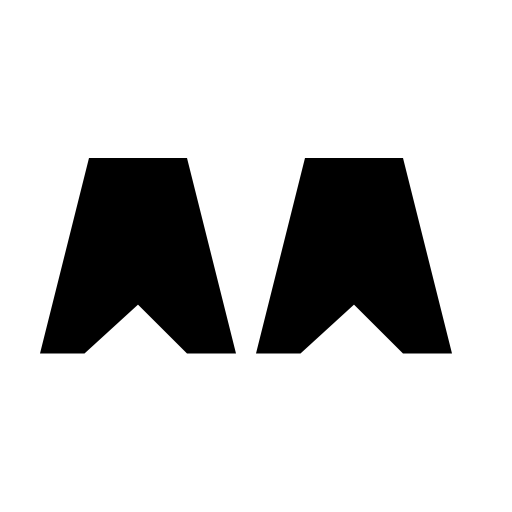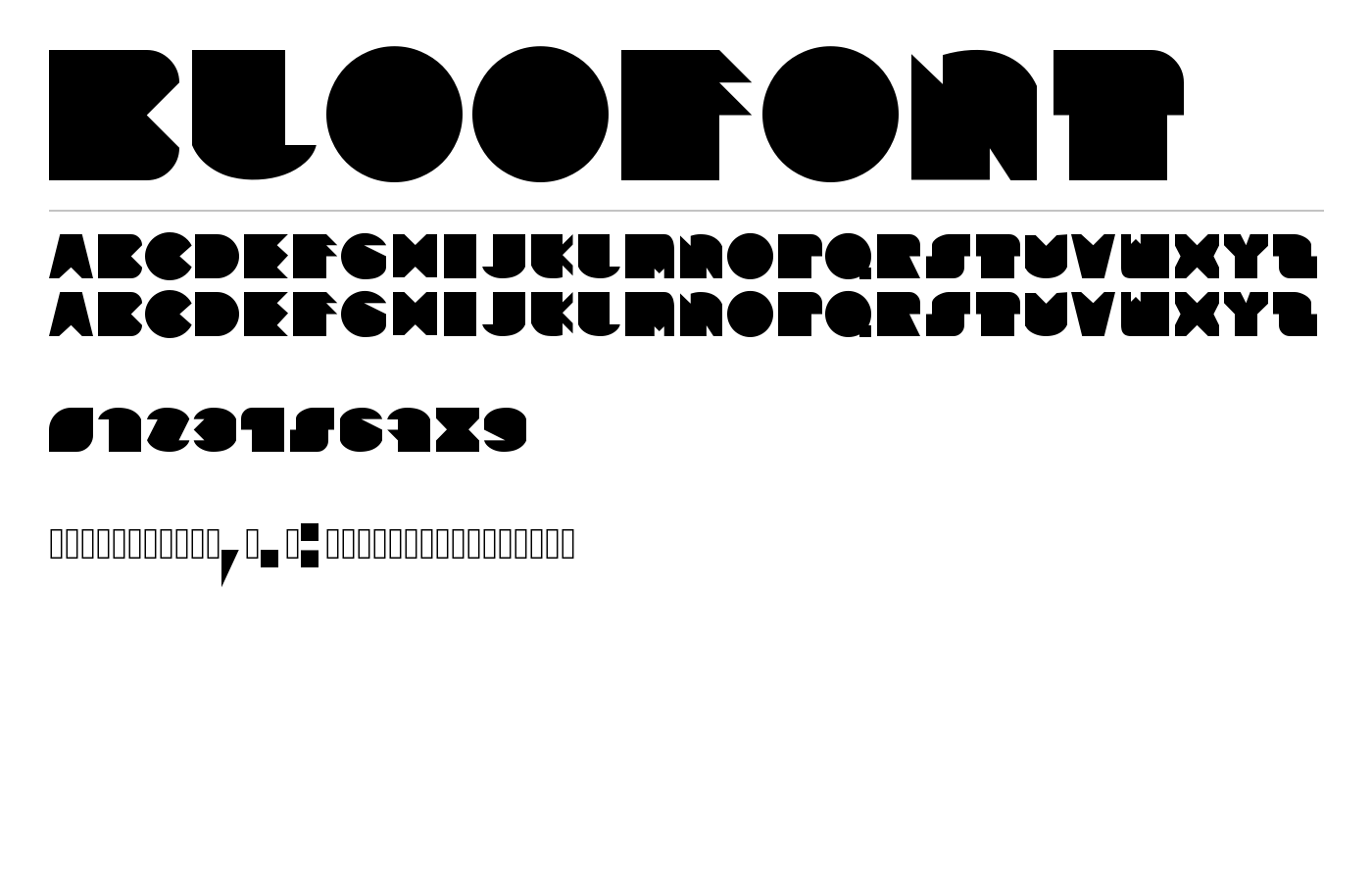
BlooFont is a bold, heavy-weight geometric display font with a strikingly modern and experimental feel. Its wide letterforms and high contrast between solid shapes and sharp angles create a playful yet powerful look, perfect for eye-catching headlines, logos, or posters where strong visual impact is key. This all-caps font brings a distinctive, contemporary personality suited for creative branding and stylish editorial design.
BlooFont